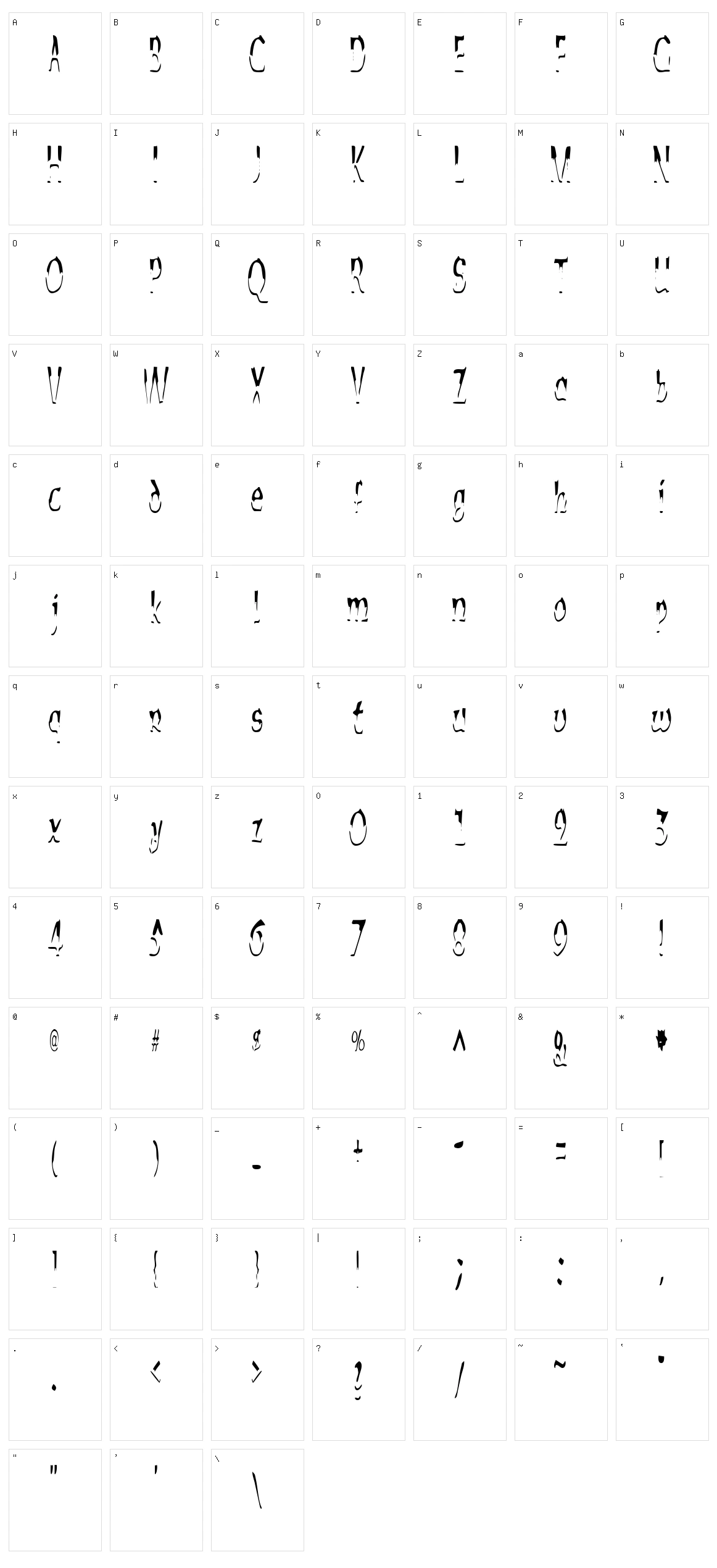
The free font Alien Script is carefully designed by Statica Productions, showcasing a thoughtful balance of creativity and usability and falls under the Eroded font style. When you download the ZIP file, it contains only 33.17 KB of font files, making it lightweight and quick to download. Please review the license details below to understand permitted usage and distribution rights. If license information is not available, we recommend using this font for personal projects only or contacting the author directly for commercial usage permissions.
Alien Script Font
Upper, Lower, Numerals and Characters
Design by Jonas Stoltz